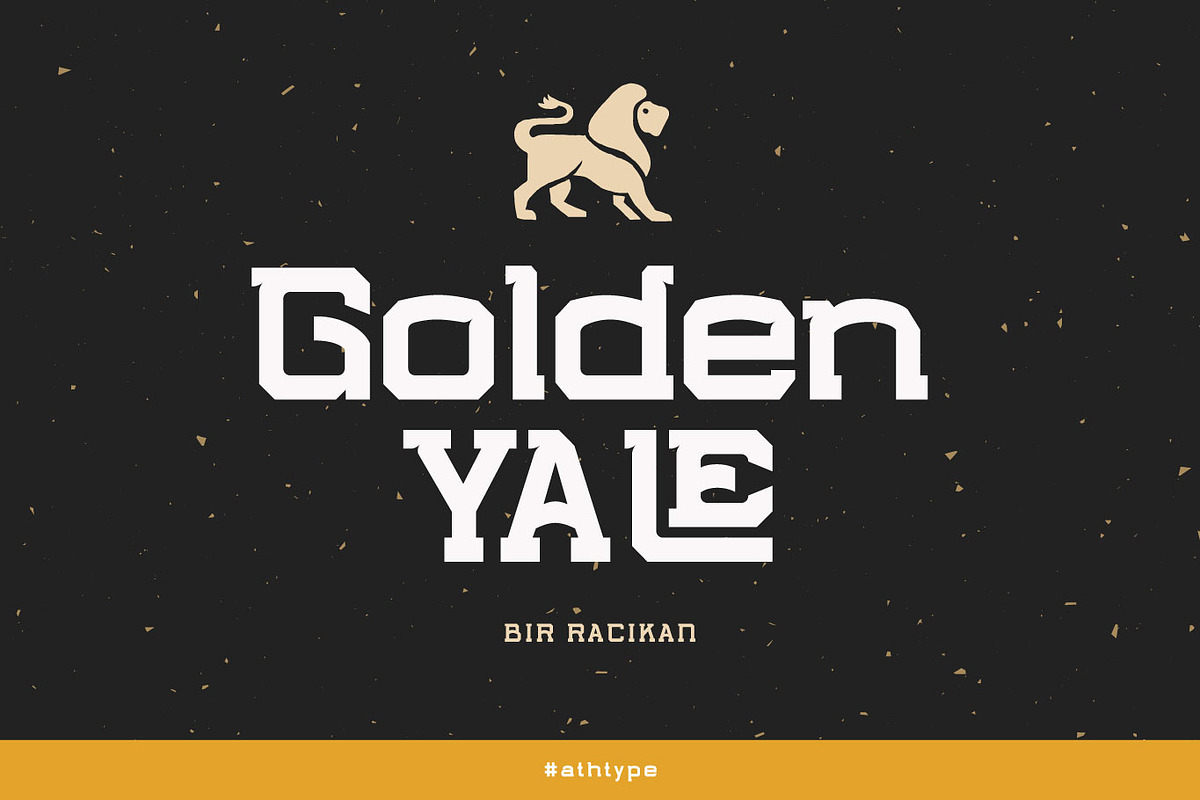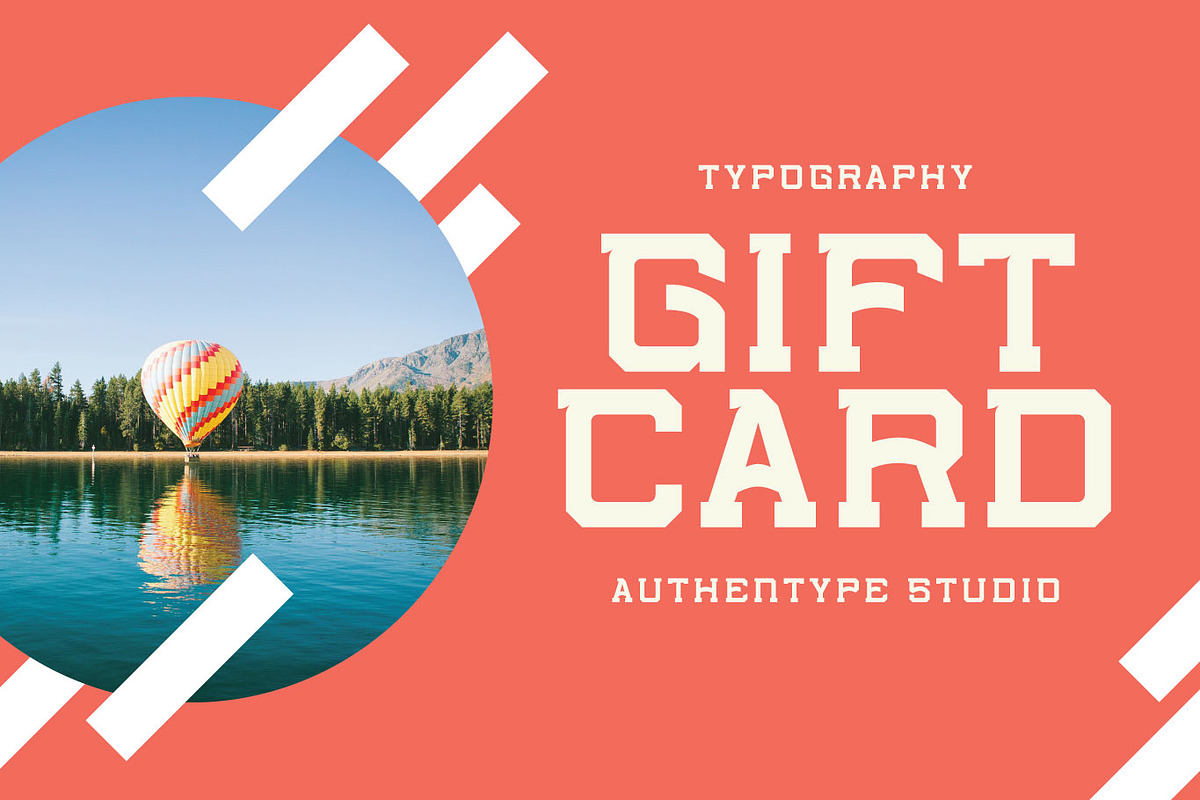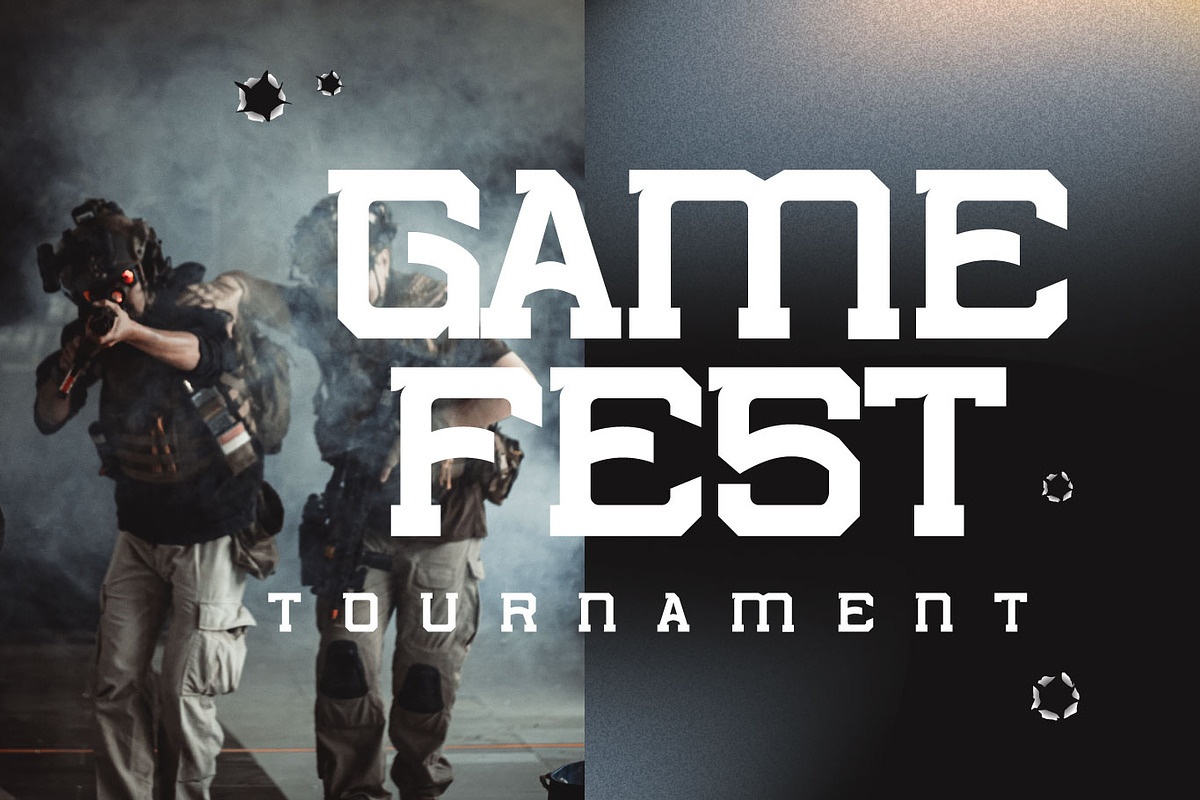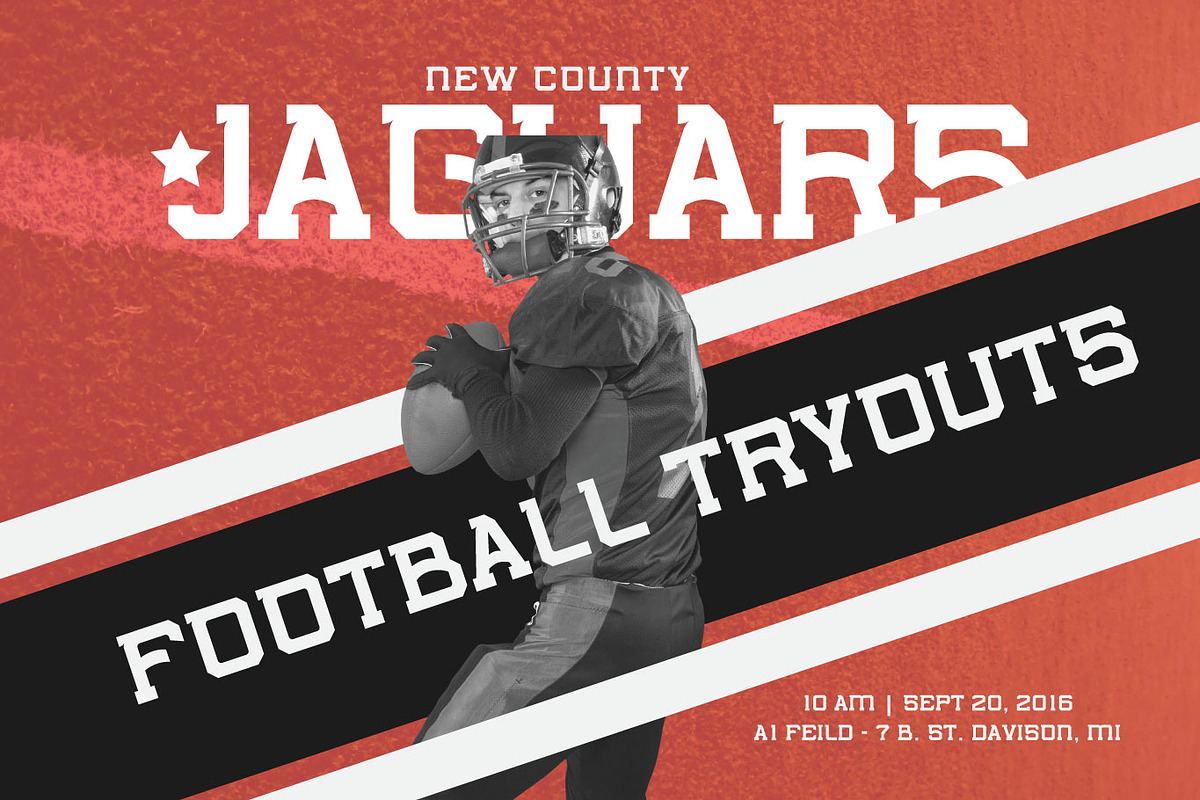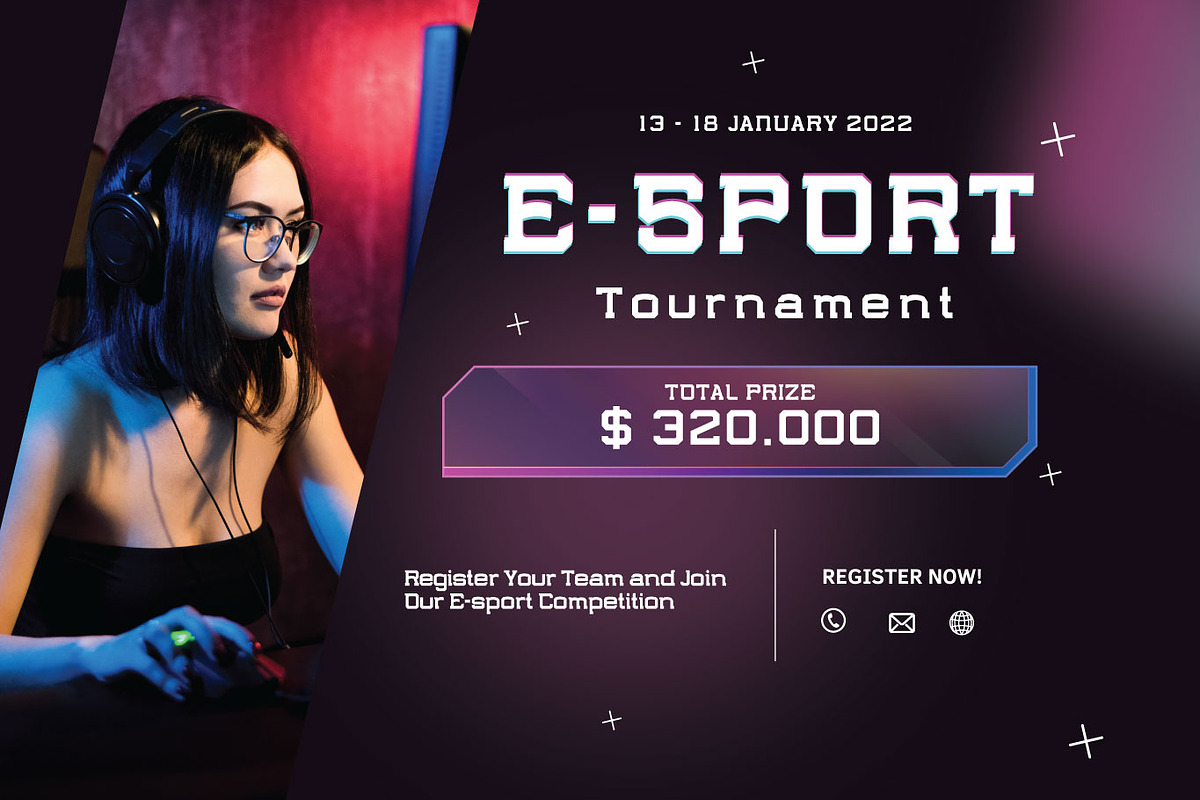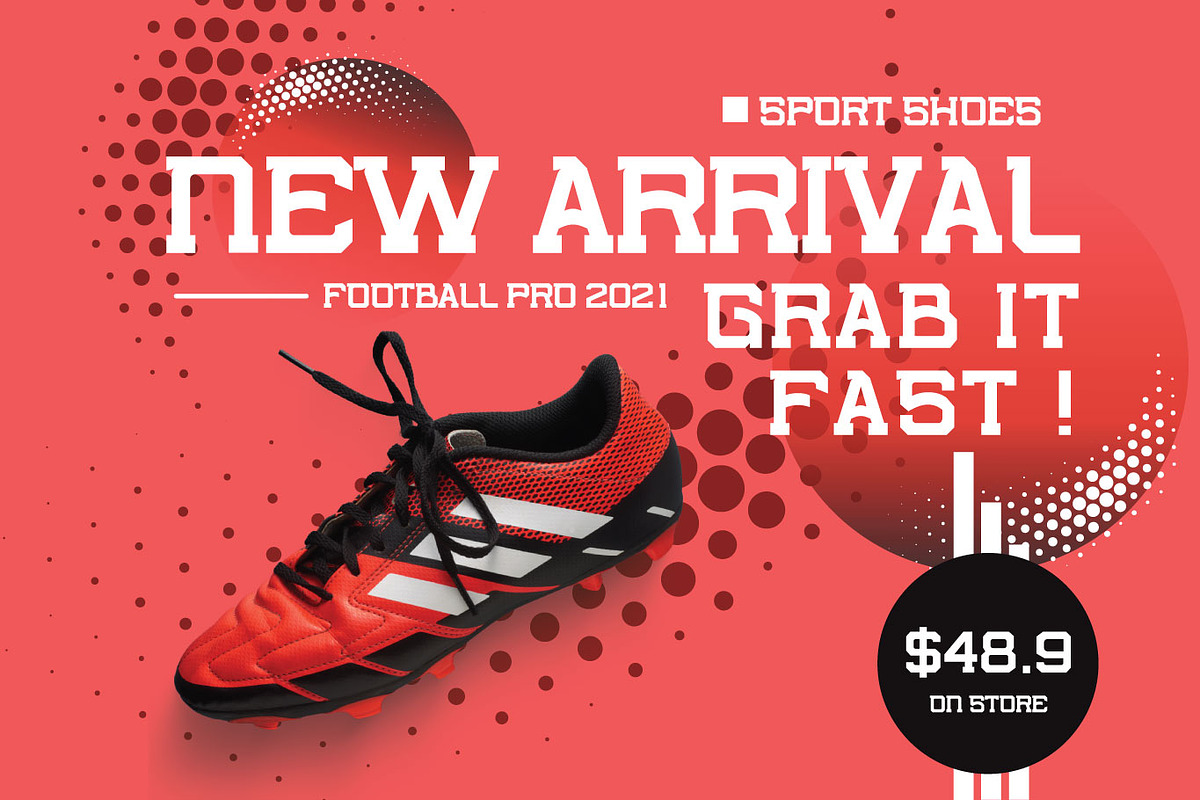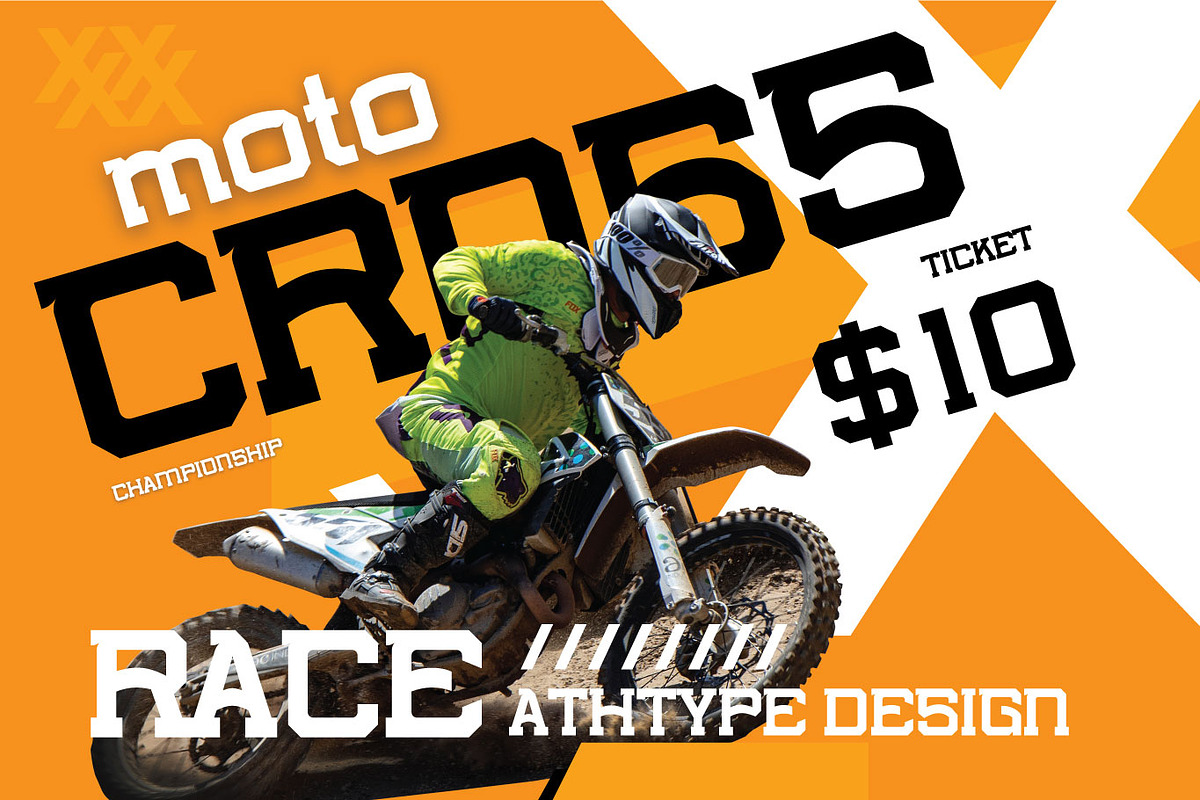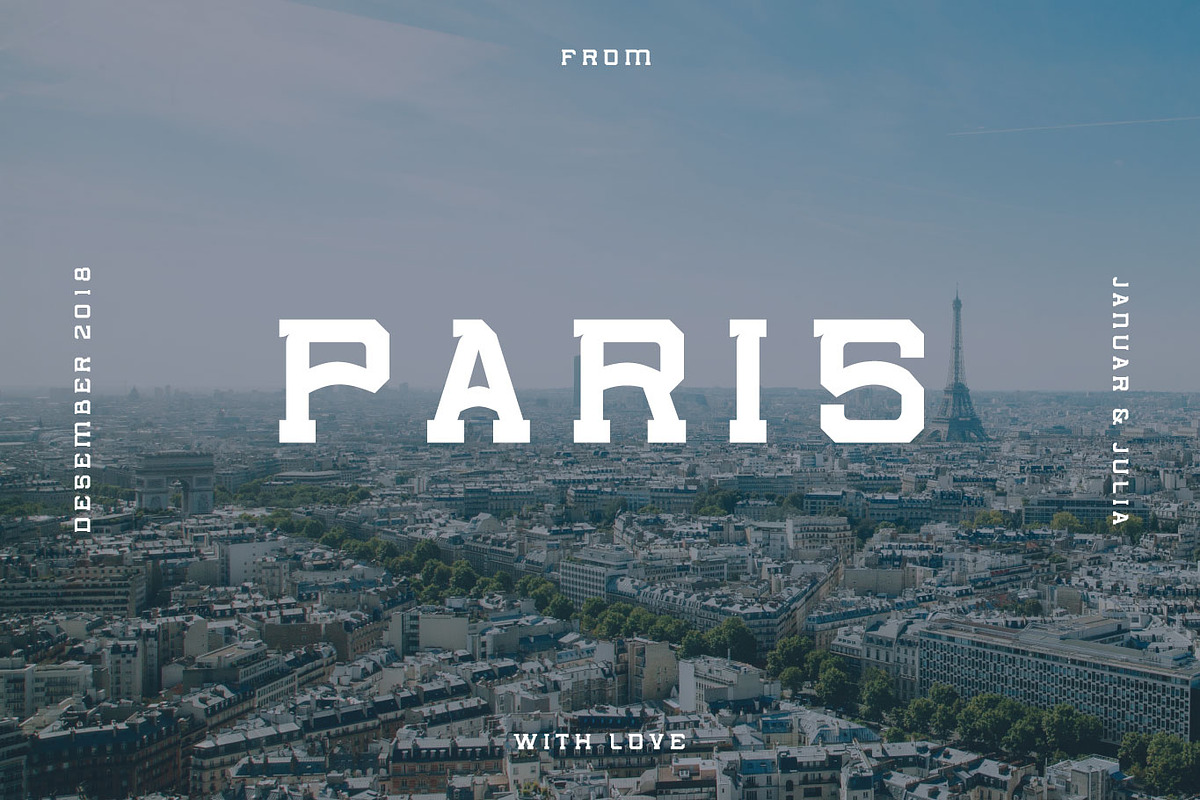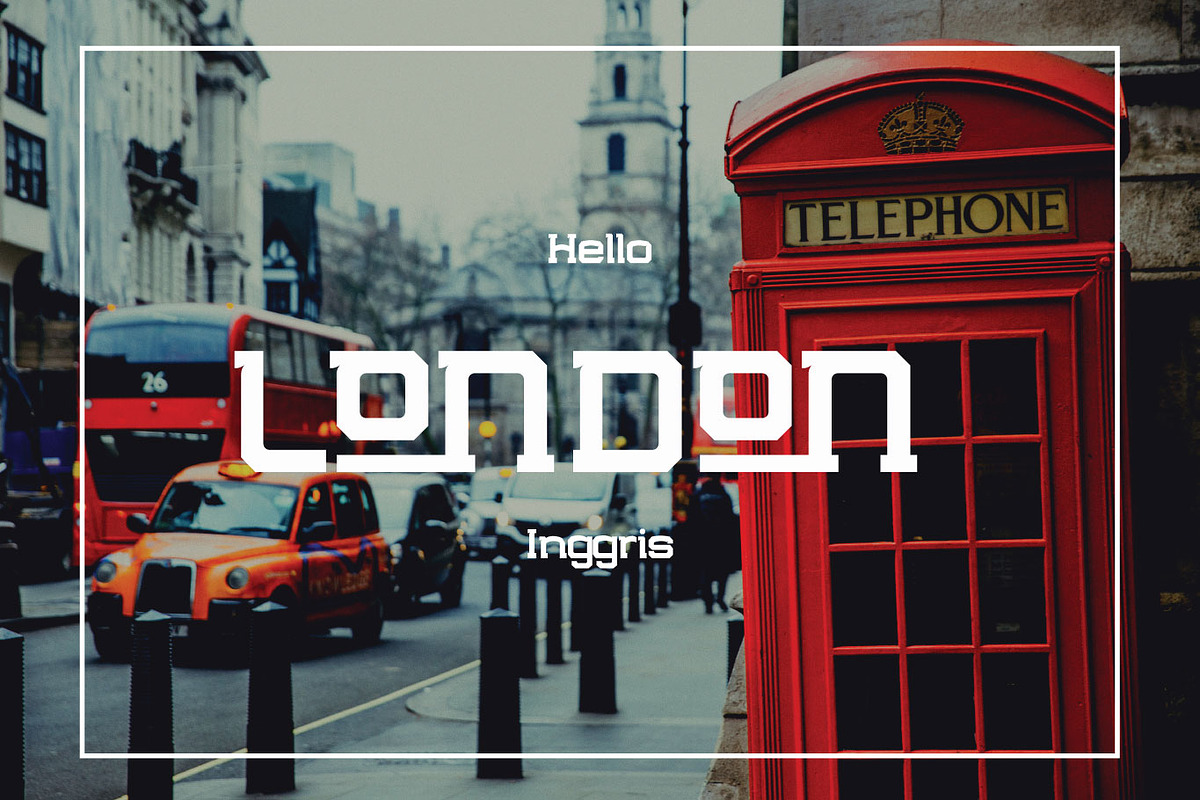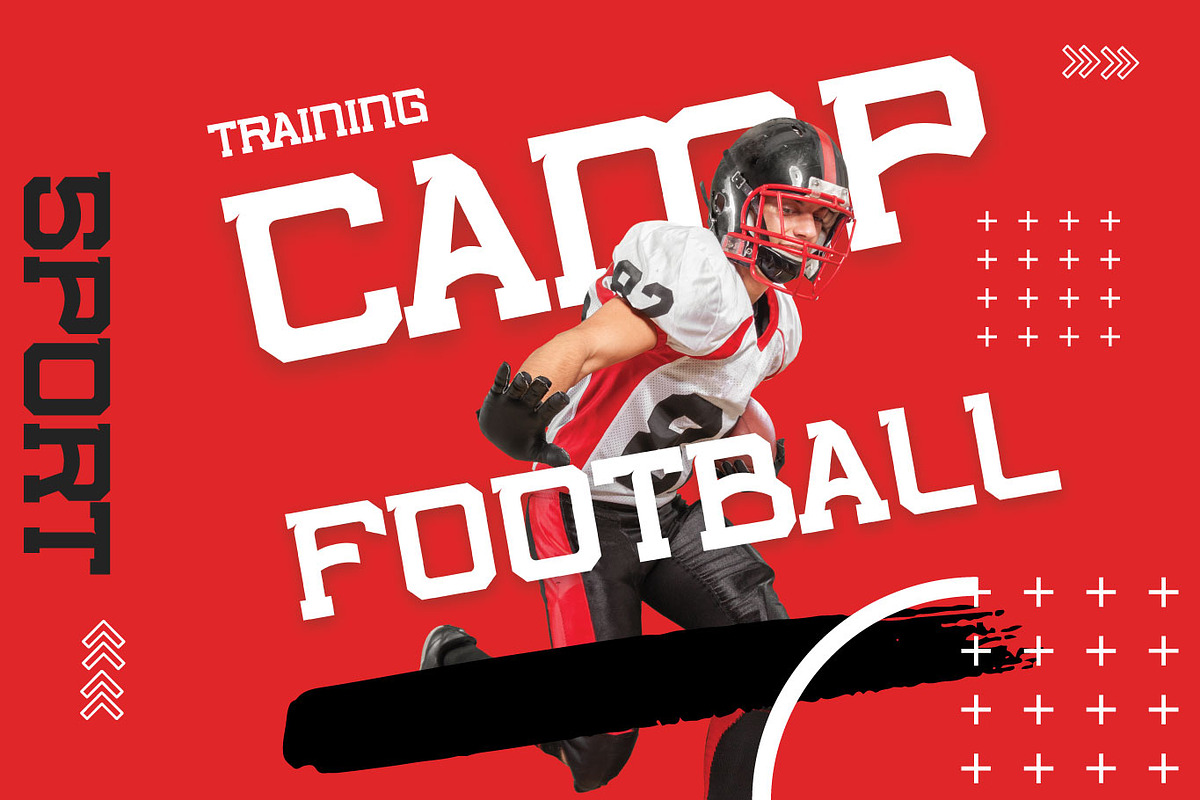
Wahong Sports Design Special Font
Wahong Sports Design Special Font, dedicated to typeface design for the fast-growing world of sports. The Wahong font design is so firm but still has a beautiful shape that reflects the excitement and beauty of the sports world. The Wahong font is made for sports. Posters, sports magazine designs and various designs that are challenging.
- Standard glyphs uppercase and lowercase letters
- Numerals, a large range of punctuation and ligatures.
- Fonts include multilingual support for; ä ö ü Ä Ö Ü ß ¿¡